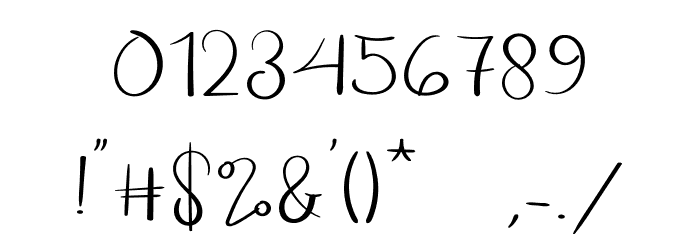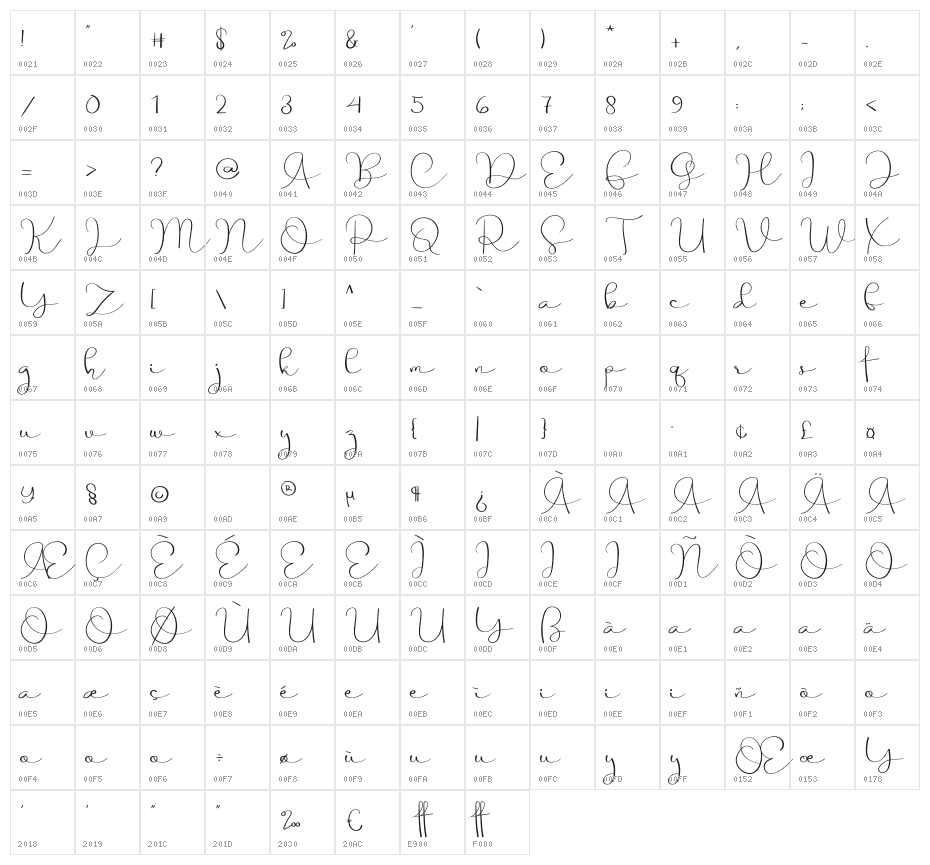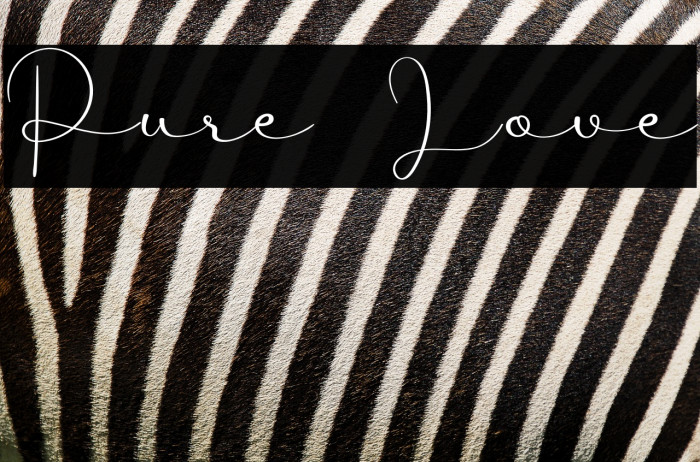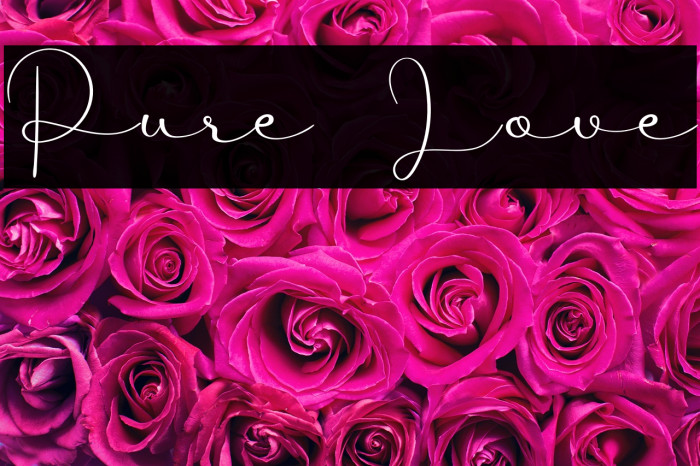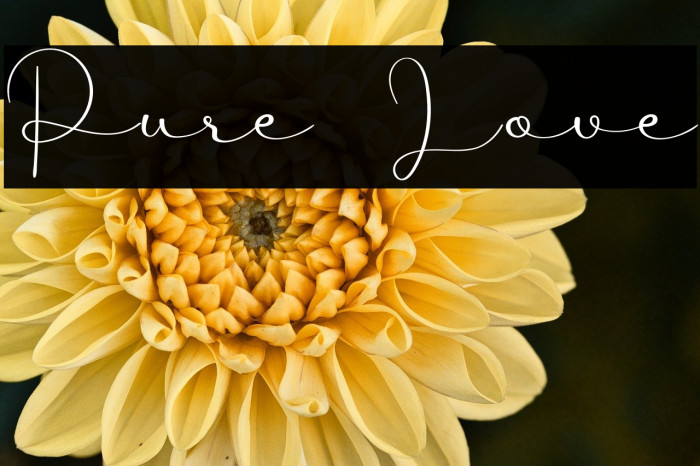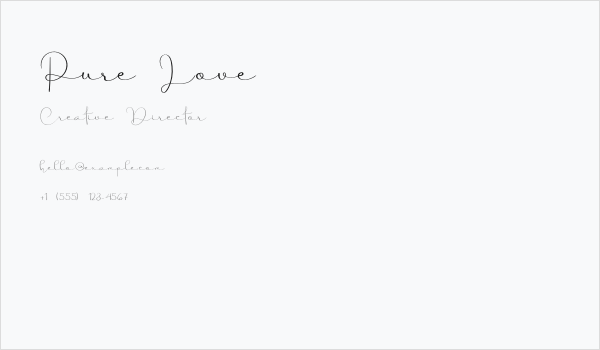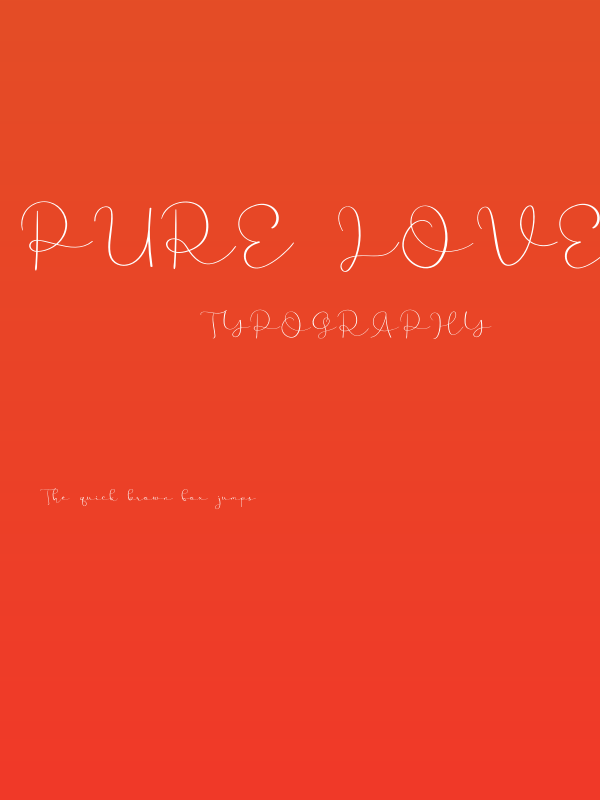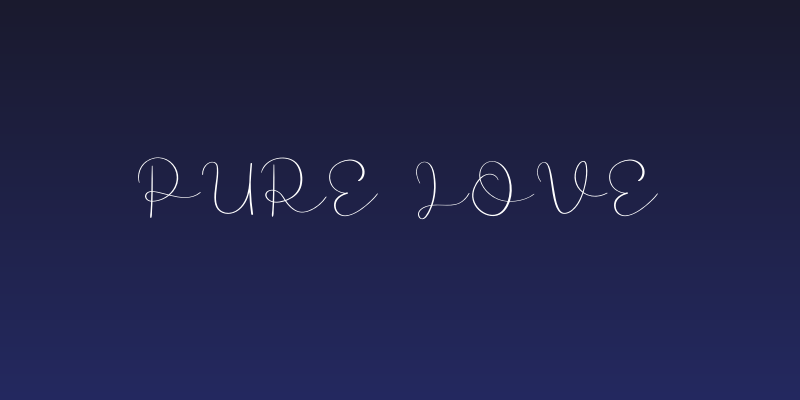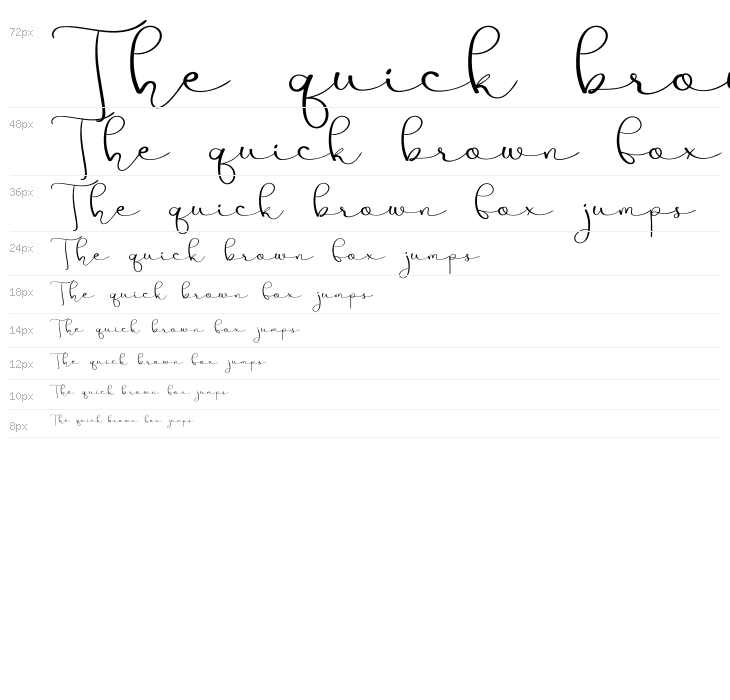
Pure Love Font
Pure Love Description
This elegant script font features a delicate, flowing style with a handwritten appearance. The uppercase letters are characterized by their graceful loops and curves, giving them a sophisticated and airy feel. The lowercase letters maintain a consistent fluidity, with some characters extending below the baseline, adding to the font's charm. The numerals are clear and legible, while the special characters blend seamlessly with the overall design. This font's thin strokes and gentle curves make it ideal for projects that require a touch of elegance and personal flair.
| Proposed Projects | Ideal for wedding invitations, greeting cards, personal branding, and elegant packaging. |